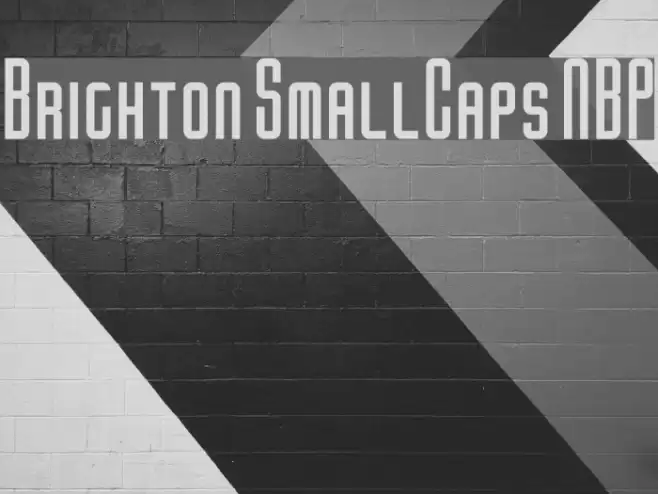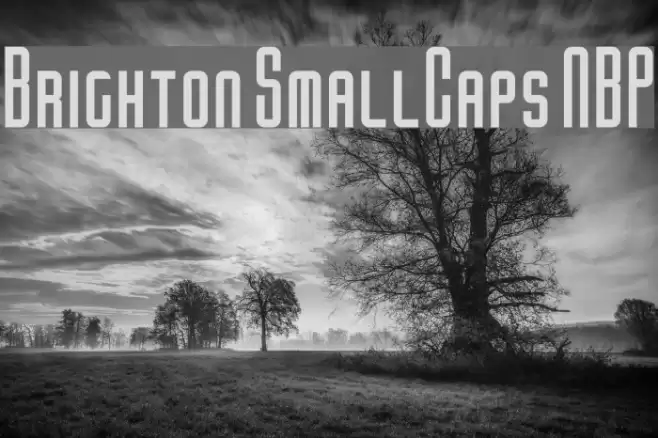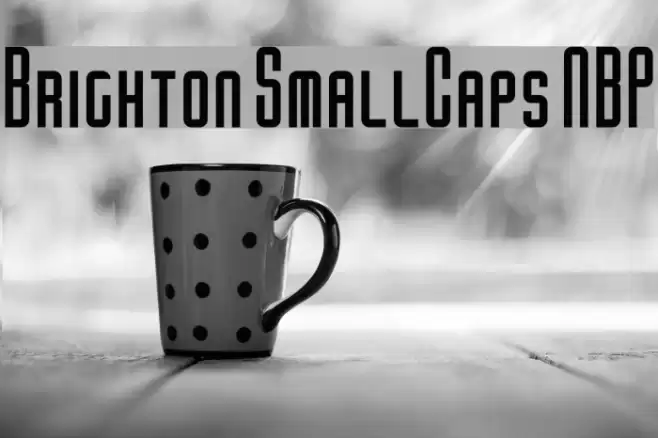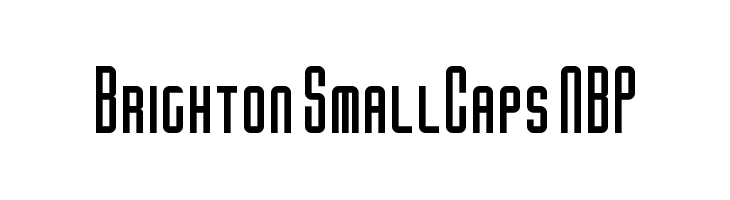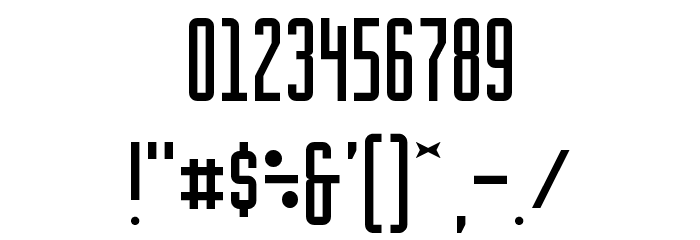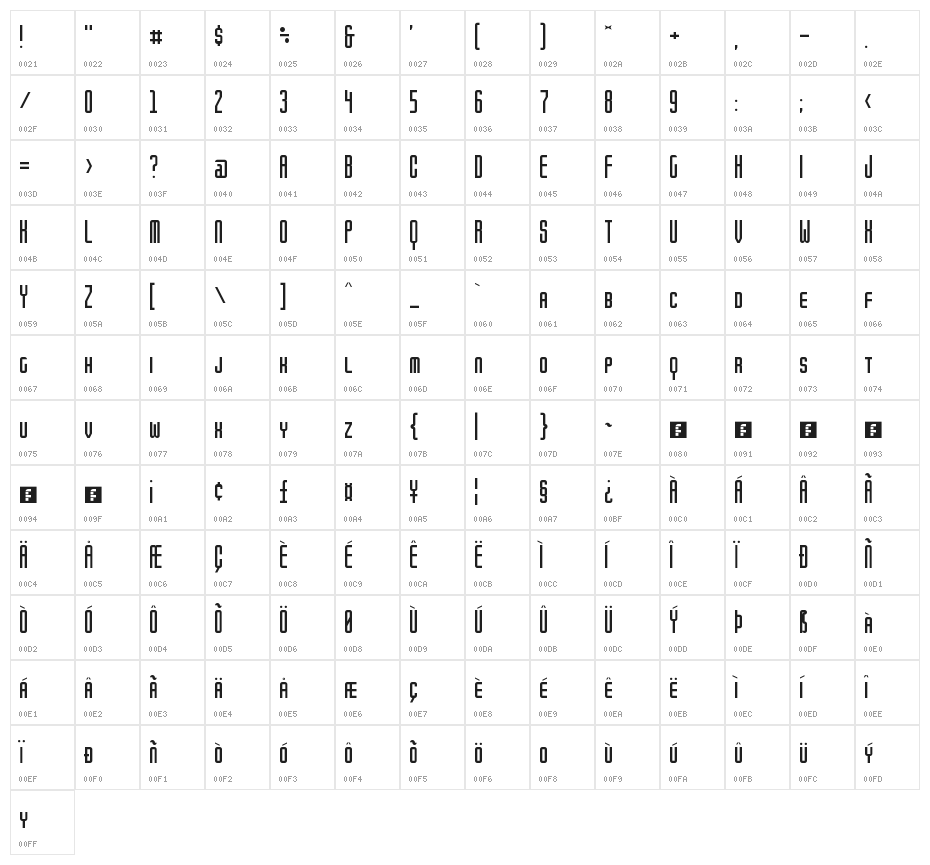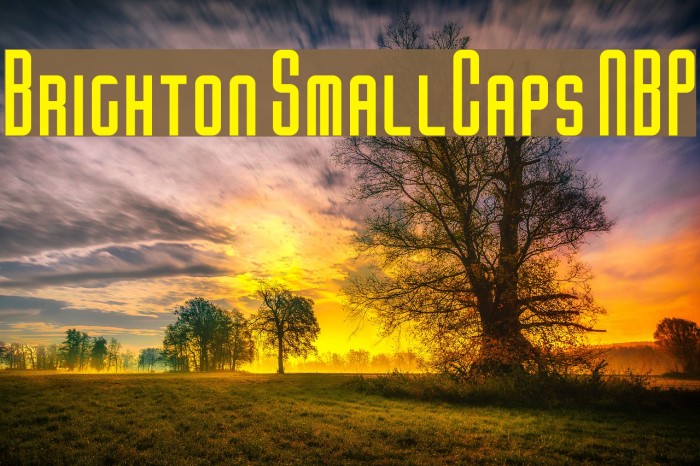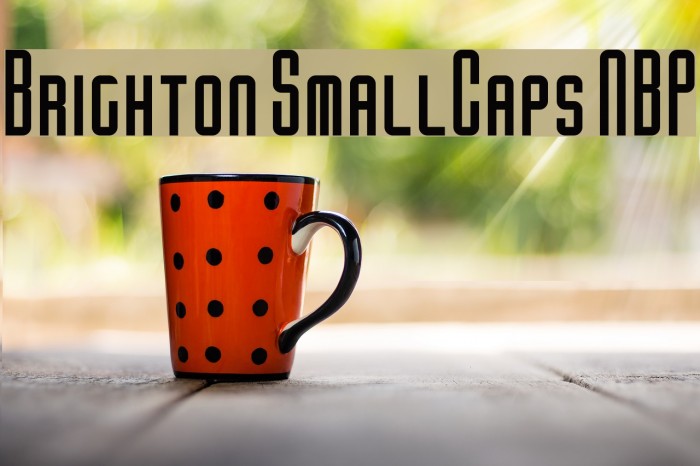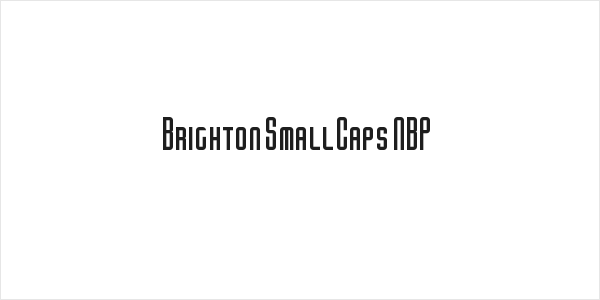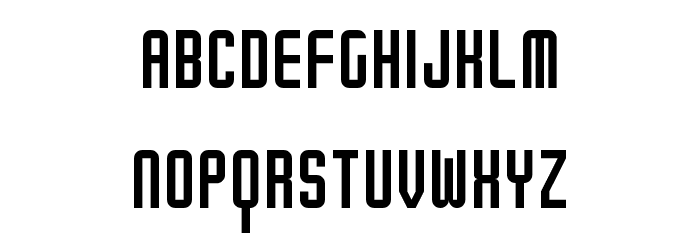
Brighton SmallCaps NBP Font
Brighton SmallCaps NBP Description
This font features a bold and geometric design with a strong vertical emphasis. The characters are tall and narrow, creating a condensed appearance that is both modern and striking. The uppercase letters are uniform in height, while the lowercase letters maintain a consistent style, enhancing readability. The numerals are equally bold and align well with the overall design. Special characters are included, maintaining the same geometric style. This font is ideal for making a strong visual impact, with its clean lines and contemporary aesthetic.
A bold, geometric font with a strong vertical emphasis and condensed style from Uncategorized fonts.
- Proposed Projects: Ideal for branding, posters, headlines, and any project requiring a modern and impactful typeface.
- Character Spacing: Tight